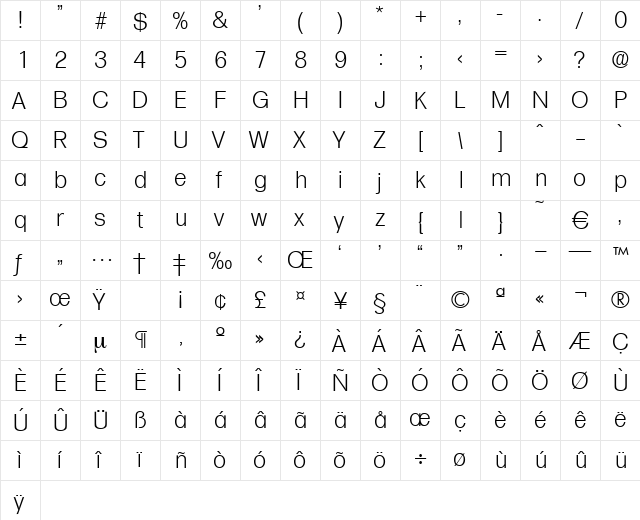
Formula-Light Regular
Design Context for Formula-Light Typeface
Formula-Light takes a measured approach to typography — its balanced proportions and neutral character make it a reliable workhorse for both digital and print work. Its slender proportions lend an understated elegance to any composition.